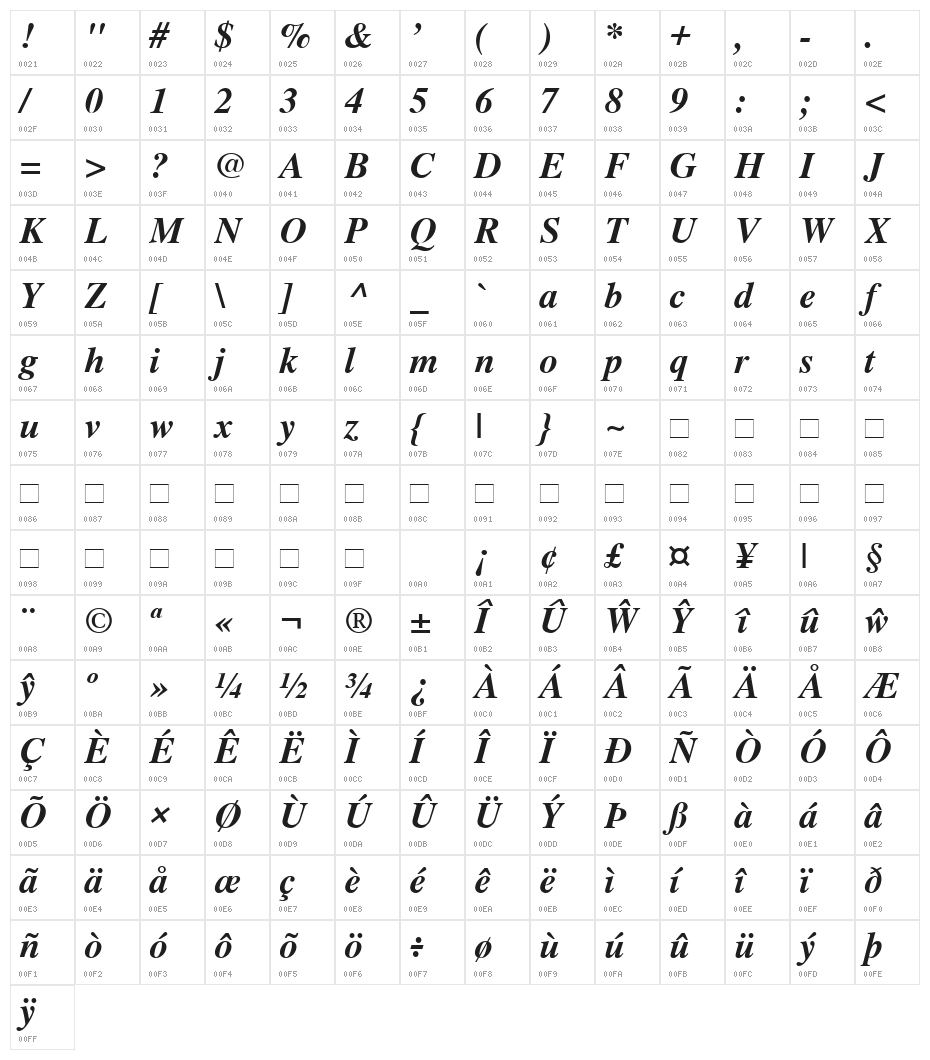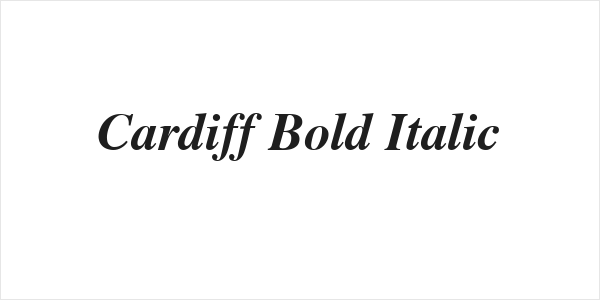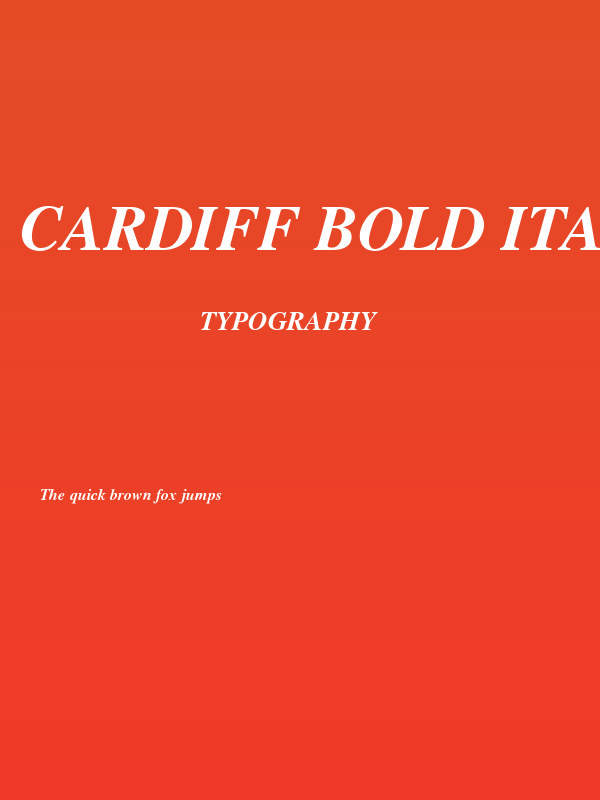
Cardiff Bold Italic Font
Cardiff Bold Italic Description
This font exhibits a classic serif style with a bold and italicized appearance, offering a sense of elegance and sophistication. The strokes are thick, providing a strong presence on the page, while the italic slant adds a dynamic and flowing character to the text. The serifs are pronounced, enhancing the traditional feel, yet the overall design maintains a modern touch. The numerals and special characters are consistent with the alphabet, ensuring uniformity across all text elements. This font is well-suited for applications that require a blend of authority and style.
| Use Case | Headlines, Logos, Editorial |
| Proposed Projects | Ideal for book covers, formal invitations, branding materials, and editorial headings. |